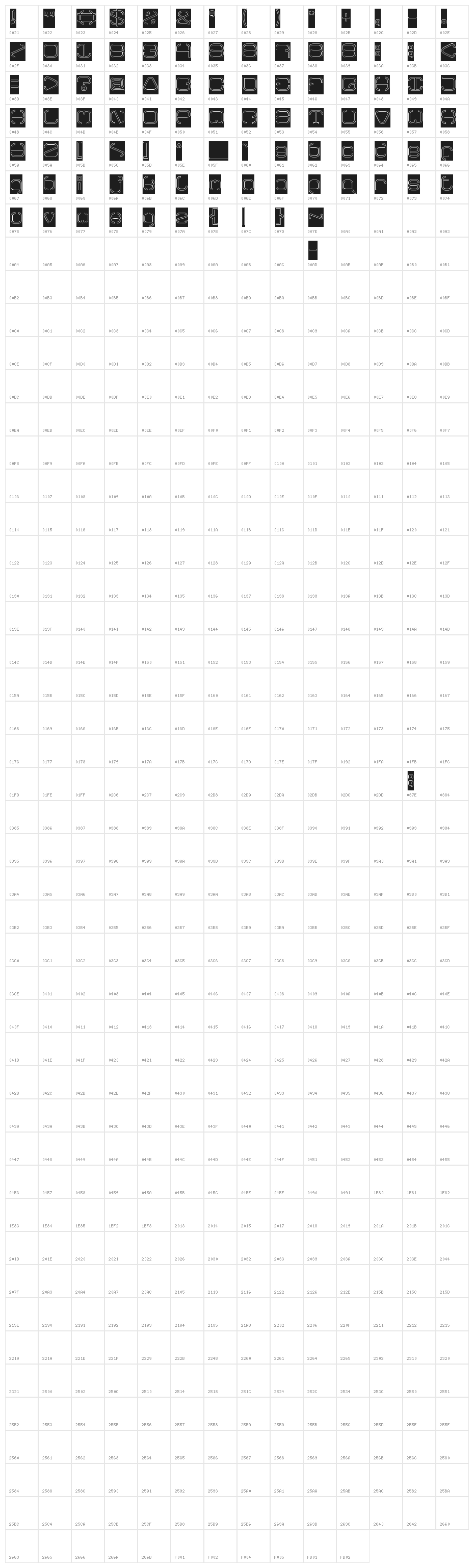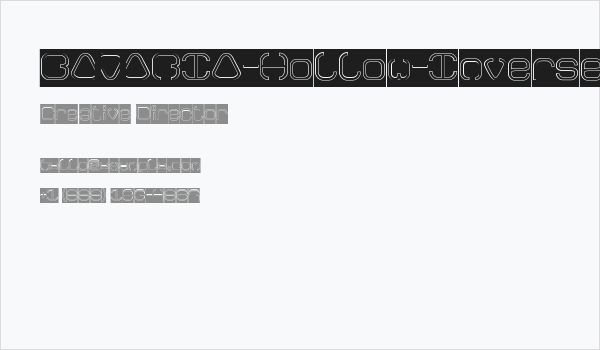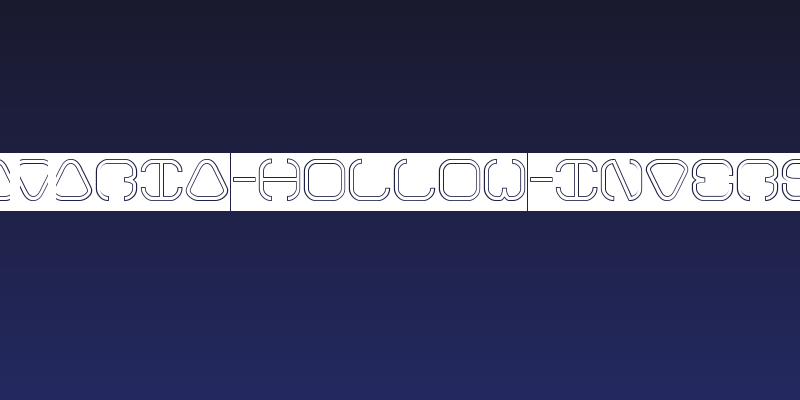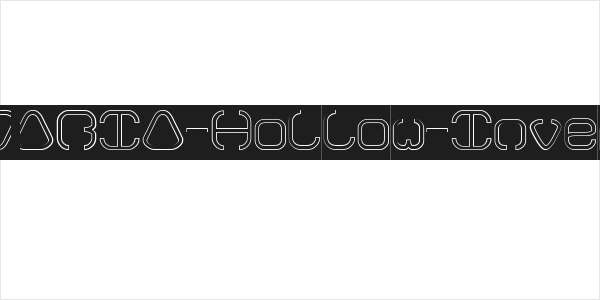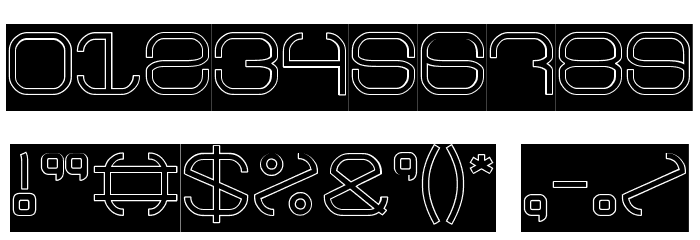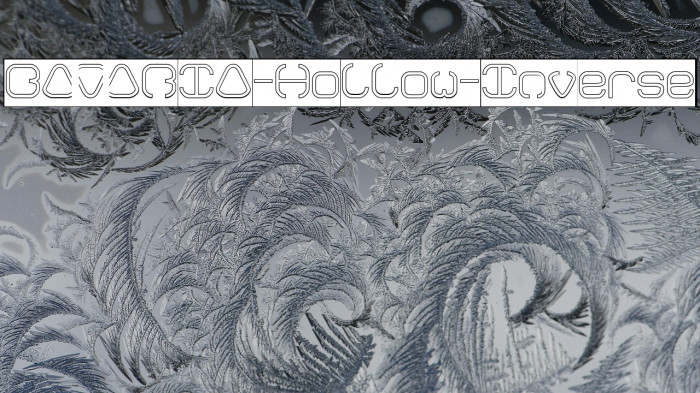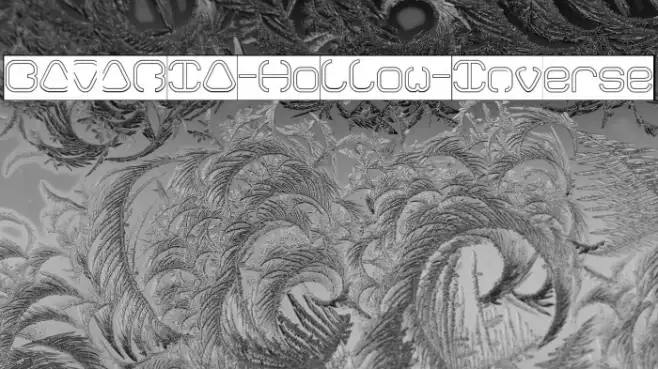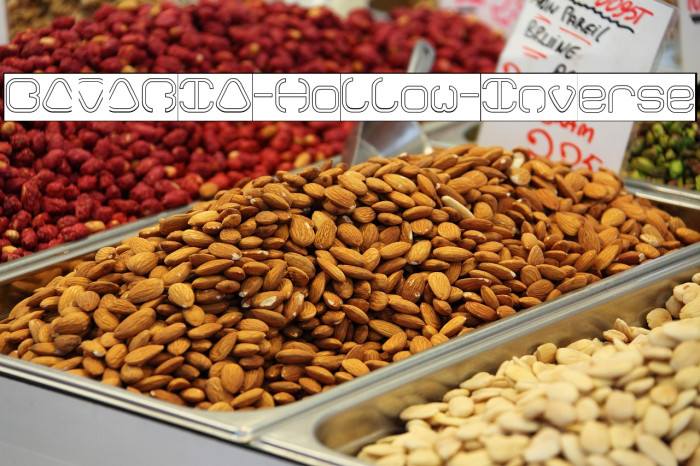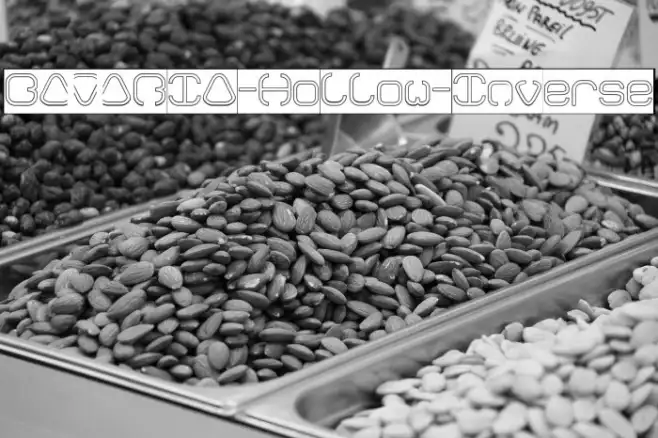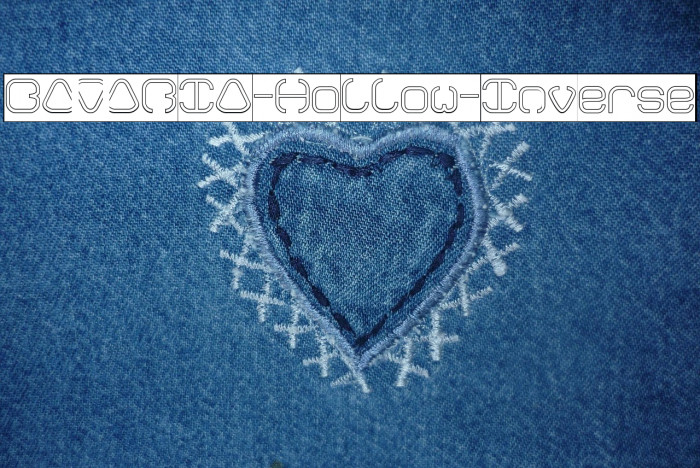
BAVARIA-Hollow-Inverse Font
BAVARIA-Hollow-Inverse Description
This font features a unique hollow design with an inverse style, creating a striking visual effect. The characters are outlined with a consistent stroke width, giving them a modern and futuristic appearance. The uppercase and lowercase letters maintain a geometric form, with rounded edges and smooth curves. The numerals and special characters follow the same design principles, ensuring uniformity across the entire character set. This font is ideal for projects that require a bold statement, as its hollow design allows for creative use of background colors and textures.
| Proposed Projects | Ideal for branding, posters, digital art, and futuristic-themed designs. |